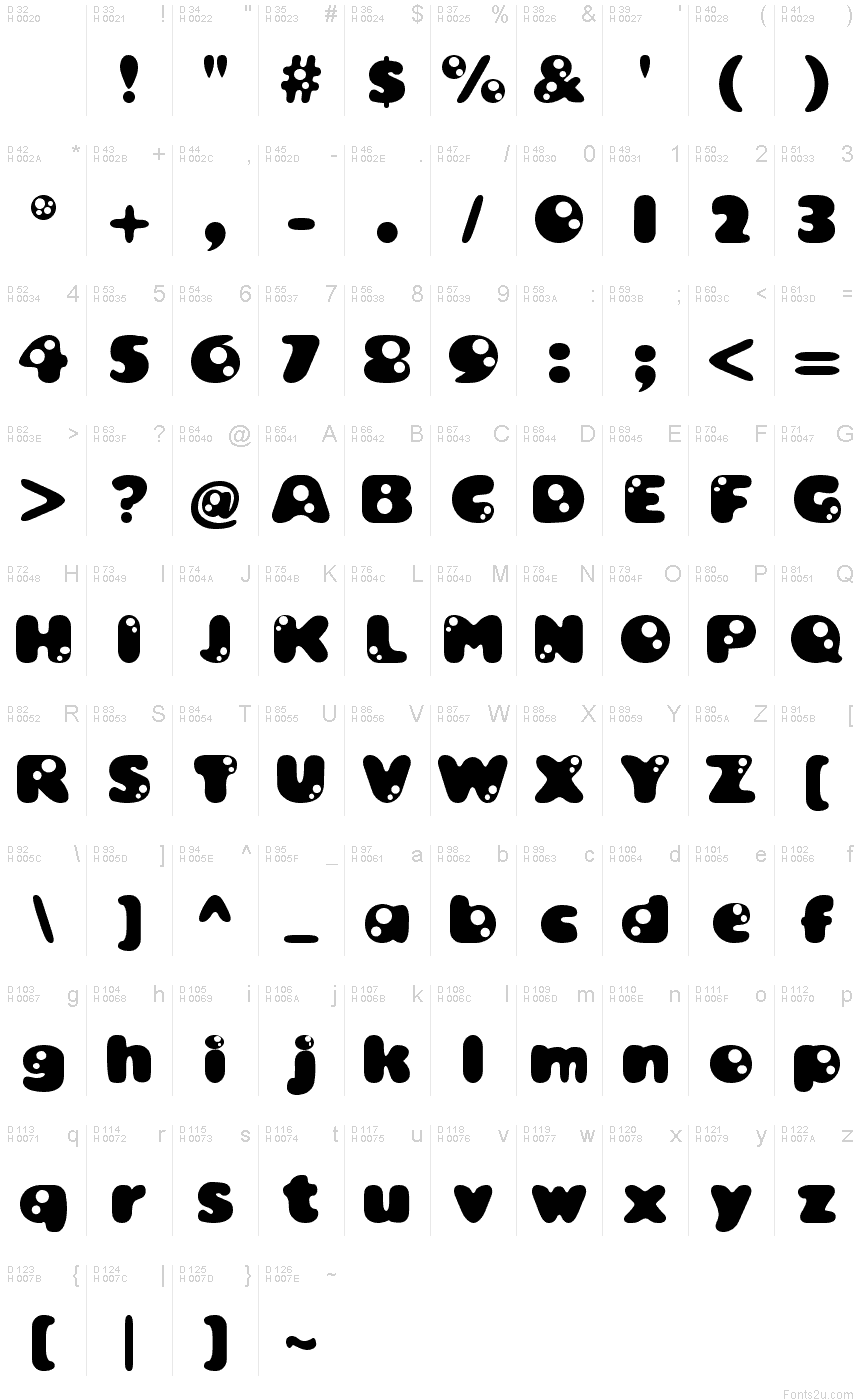
Bambina
Bambina font by Tomoyuki Watanabe is a free comic typeface with thick, inky blobs that look almost poured onto the page. Its ultra-rounded shapes, tiny counters, and snug spacing give every word a puffy, toy-like presence that feels playful but confident. Letters line up like soft building blocks, creating a chunky rhythm that’s easy to read at a glance and impossible to ignore at large sizes.
This free font shines on kids’ branding, candy or snack packaging, party invitations, game titles, stickers, and bold social graphics. Using Bambina instantly adds a friendly, squeezable energy that suits fun-first projects and youth-focused content. Try pairing Bambina with a clean, light sans serif for body text so its big, bubbly forms can handle the headlines.